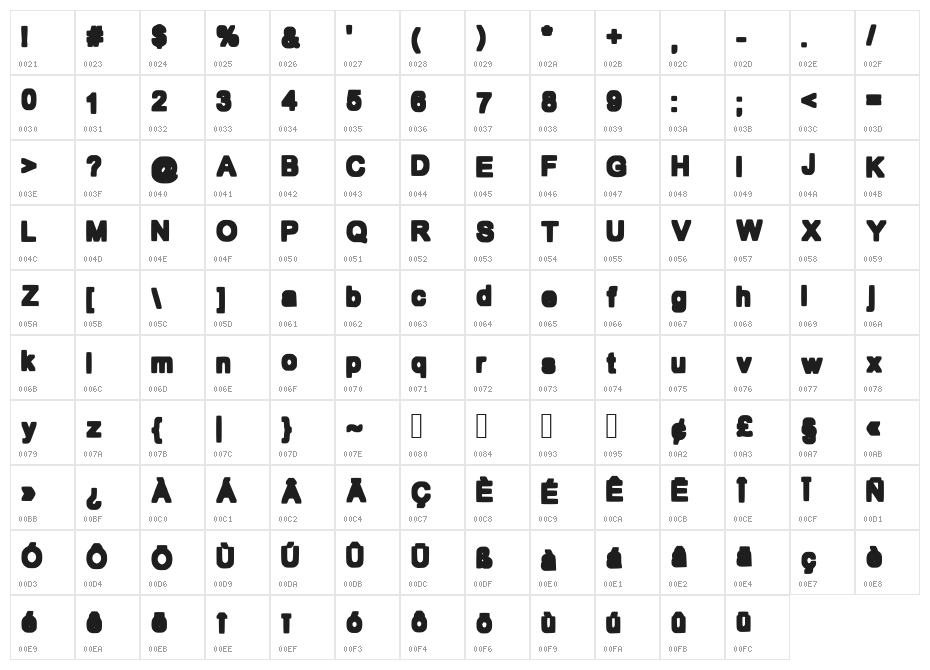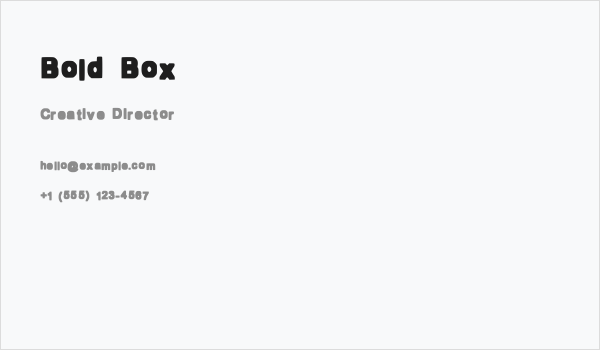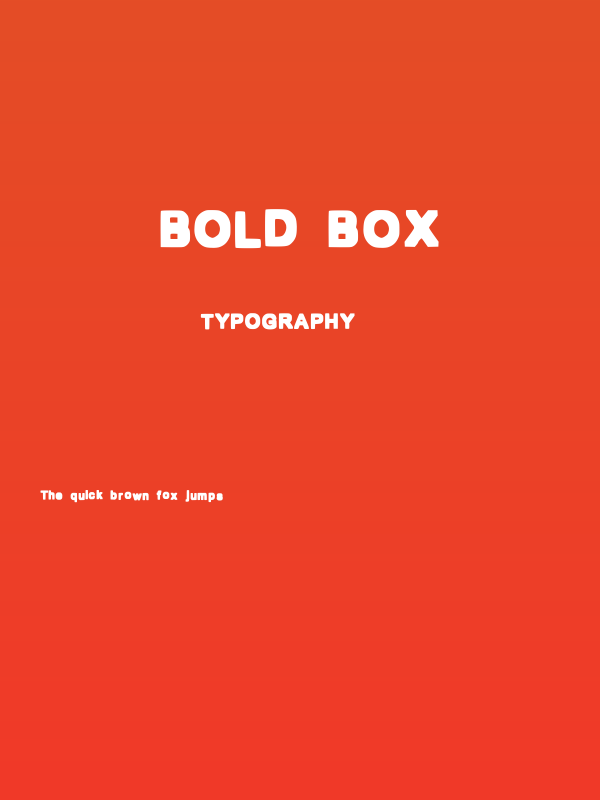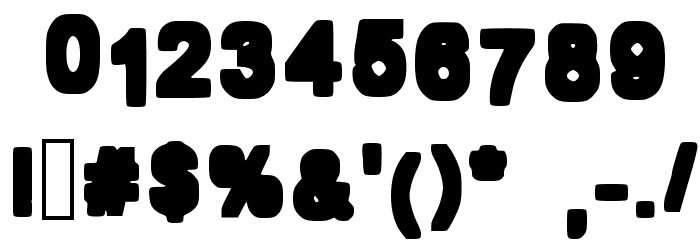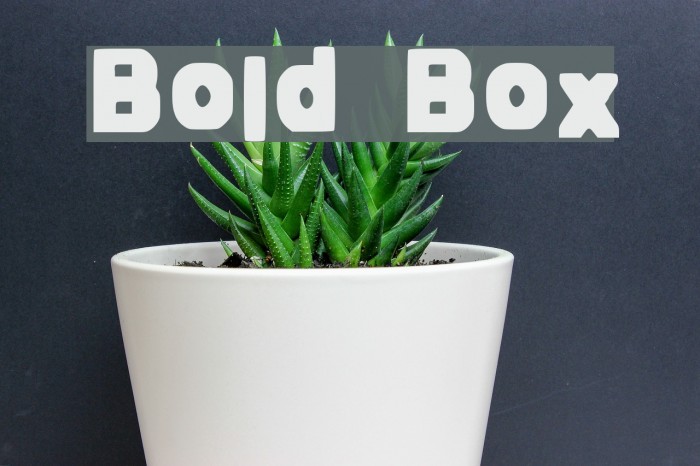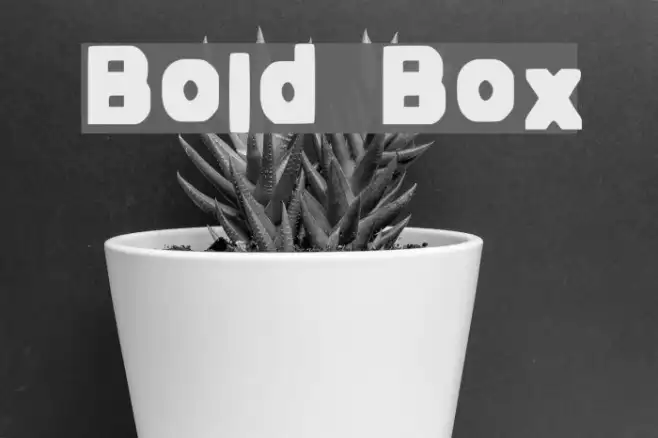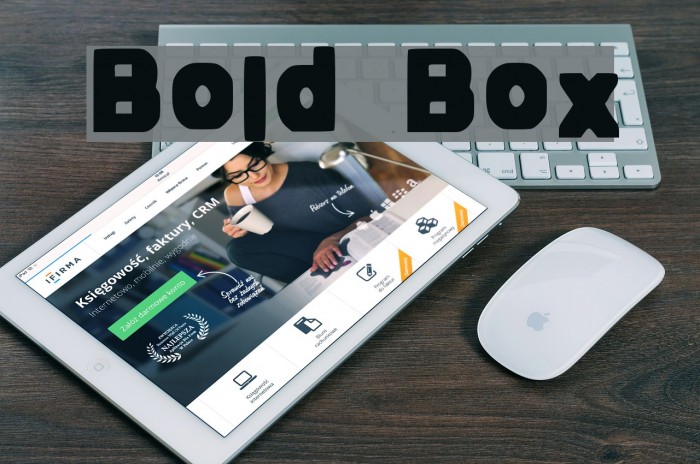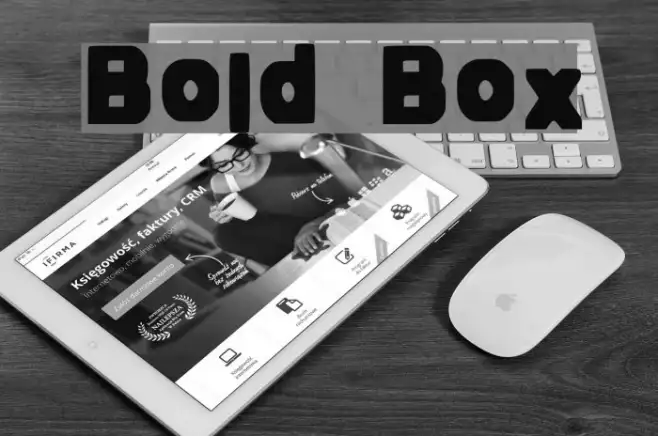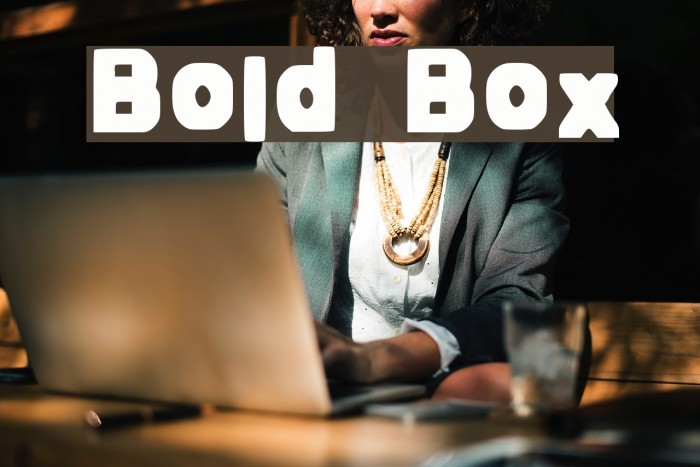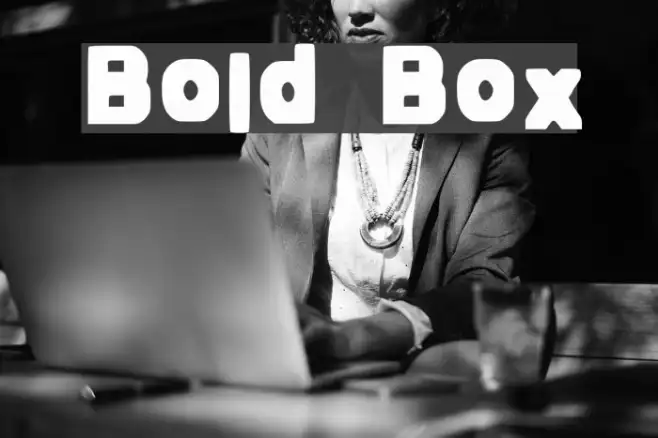
Bold Box Font
Bold Box Description
This font features a bold and boxy design, characterized by thick, uniform strokes that create a strong visual impact. The letters are rounded at the edges, giving them a soft yet powerful appearance. The uppercase and lowercase letters maintain a consistent weight, emphasizing the boldness throughout. The numbers and special characters follow the same design principles, ensuring a cohesive look across all elements. This font is highly legible and commands attention, making it suitable for various design applications.
| Proposed Projects | Ideal for branding, posters, headlines, and any design requiring a strong, impactful typeface. |